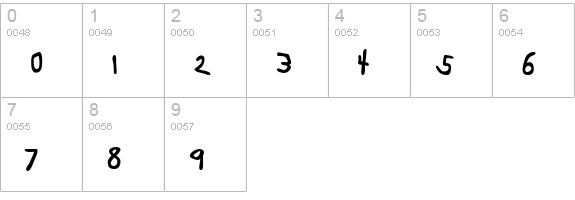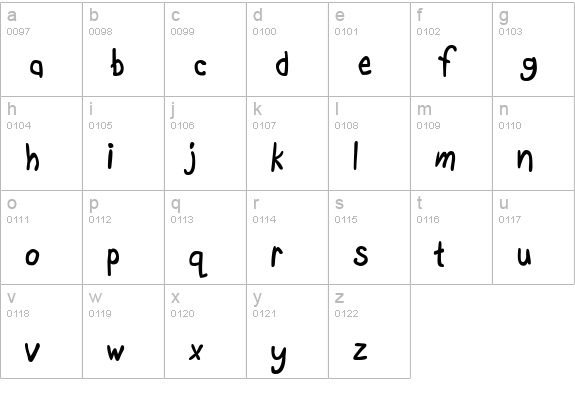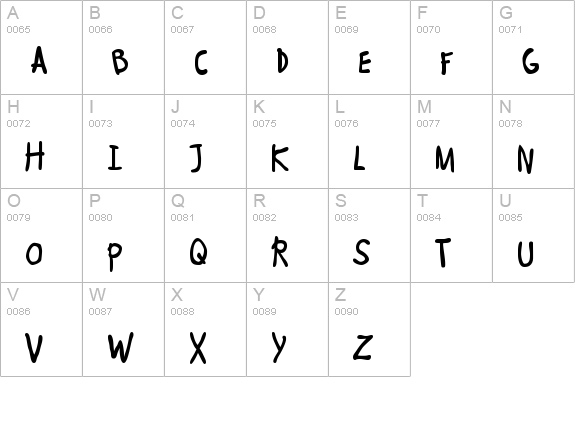
Boopee Bold Font Details
Boopee Bold is a strong, high-contrast variant in the Boopee typeface family \xE2\x80\x94 well suited to headlines, attention-grabbing titles, and strong calls-to-action.
Boopee Bold font is a versatile and eye-catching typeface that exudes confidence and modernity. With its bold and dynamic design, Boopee Bold is perfect for making a statement and grabbing attention in any project. Its strong and impactful characters make it ideal for headlines, titles, and branding materials. The best part is that Boopee Bold font is available for free download at FontsMarket.com. This means you can easily add this striking font to your collection without any cost. Whether you're working on a poster, logo, website, or any other design project, Boopee Bold will help you stand out and make a lasting impression. Don't miss out on this fantastic opportunity to enhance your designs with the bold and stylish Boopee Bold font. Download it for free today and take your projects to the next level!